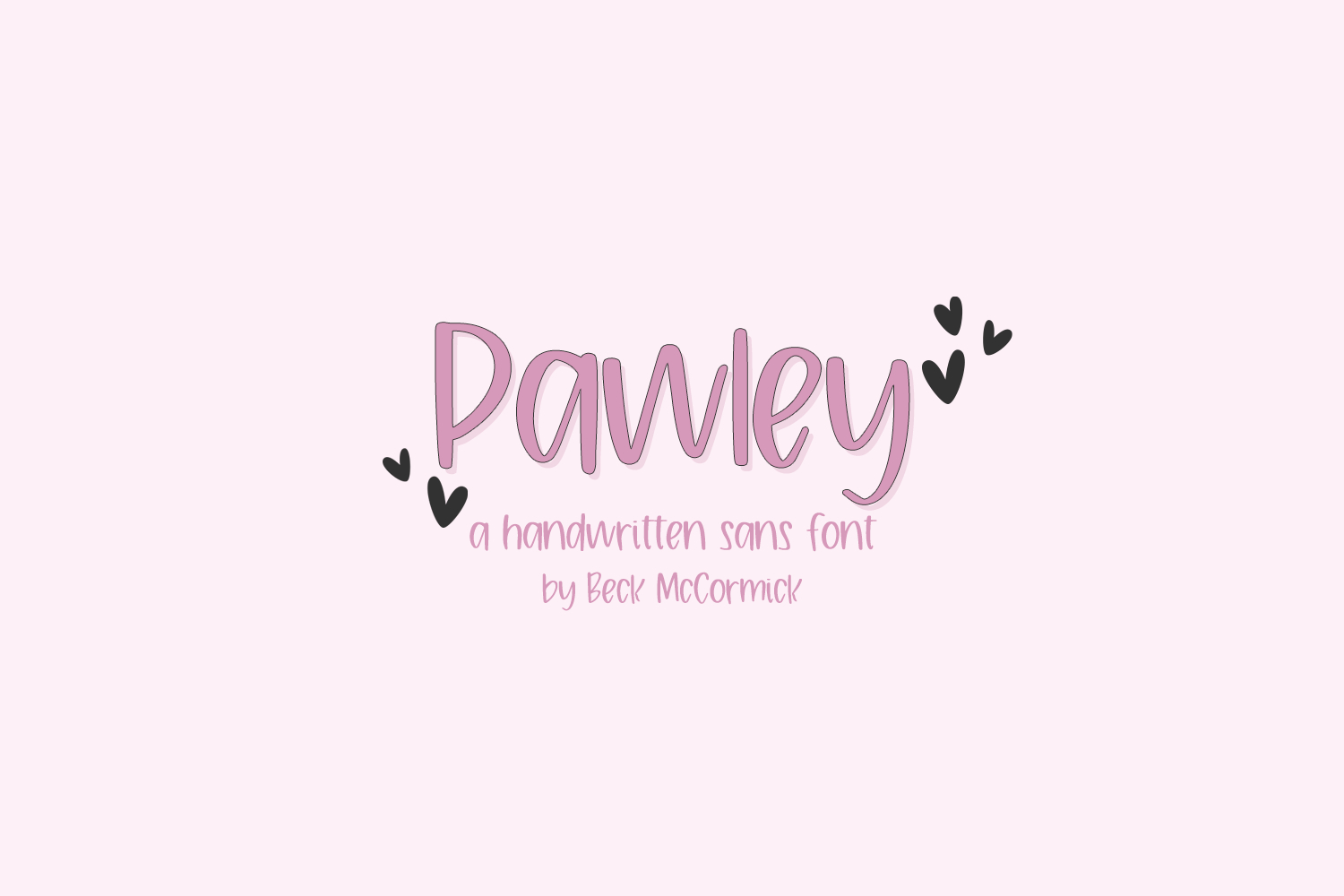
Introducing Pawley, a handwritten sans font. Pawley Sans is neat & tidy, and would be best for digital planner apps like GoodNotes. You can also use it for note-taking apps to make your study notes effortlessly cute, but easy to read. Pawley can also be used for other print design like magazines and flyers or printed marketing materials. This font can also be used for digital marketing materials and social media items!